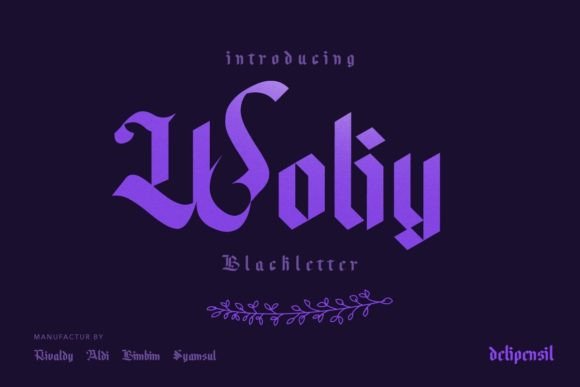
Are you looking for the best font to make your text stand out and grab attention? Look no further than Woliy Font - the ultimate choice for bold letters! Created by the talented delipensil, this font belongs to the blackletter family and is designed to make a lasting impact.
Woliy Medium Font is more than just a font; it is a work of art that will elevate your designs to a whole new level. With its striking and unique characters, this font exudes a sense of cleanliness and captivating aesthetics. Whether you're looking to create tattoo lettering, design a logo, or craft display text, Woliy Font will make your work truly remarkable.
One of the standout features of Woliy Font is its versatility. This font is not limited to a specific style or theme - it can adapt to any project with ease. Are you planning a Halloween-themed project? Woliy Font will add a touch of spookiness and intrigue to your design. Need to create eye-catching posters? Woliy Font will ensure your message is impossible to ignore.
But that's not all - Woliy Font is also perfect for clothing designs. Whether you're creating t-shirts, hoodies, or accessories, this font will give your merchandise a bold and trendy look. Imagine the impact your brand will have with Woliy Font as its signature style.
In conclusion, Woliy Medium Font is the go-to choice for anyone seeking the best font for bold letters. Its distinct style, versatility, and captivating aesthetics make it the perfect choice for tattoo lettering, logo design, display text, Halloween-themed projects, posters, clothing designs, and so much more. Take your designs to new heights with Woliy Font - the font that will make your work shine!